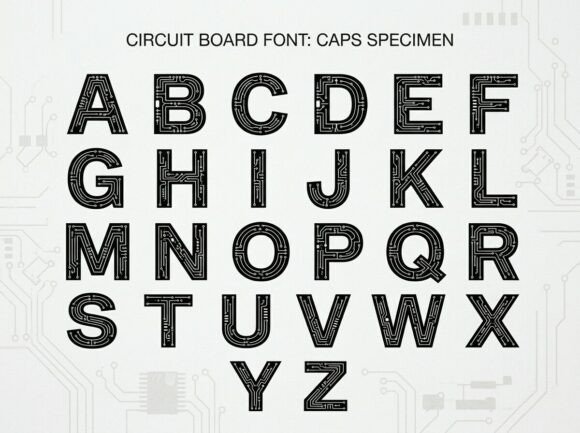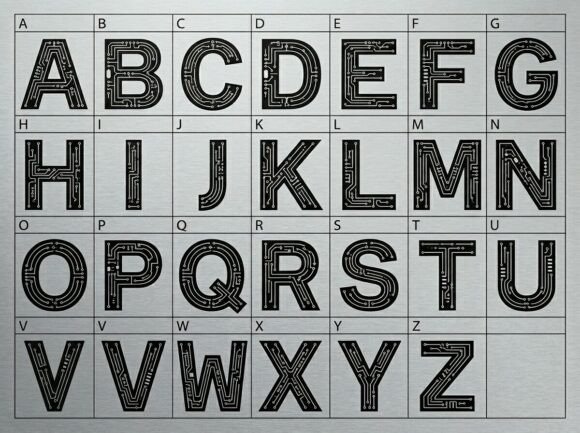
Introduction to Mycha Font
Command the digital frontier with Mycha, a high-impact display font built for the age of innovation.
This typeface features bold, geometric letterforms meticulously constructed with a mesmerizing circuit-board pattern The intricate โtraceโ lines and โsolderโ nodes within each character radiate a glowing, high-tech energy that captures the authentic essence of a motherboard.